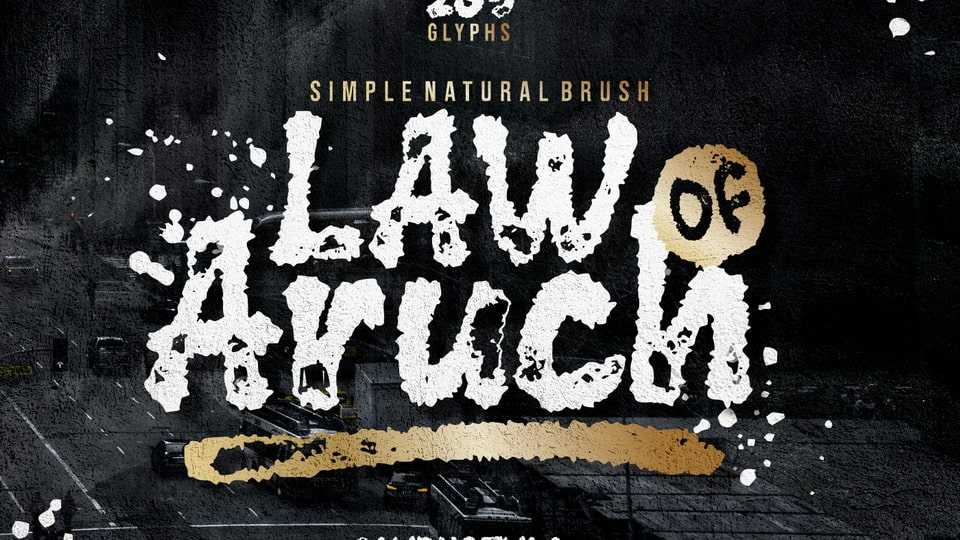
Download Law Of Aruch font, a natural brush style typeface with a simple grunge effect. There are several ligatures and swashes available, bold brush style font.